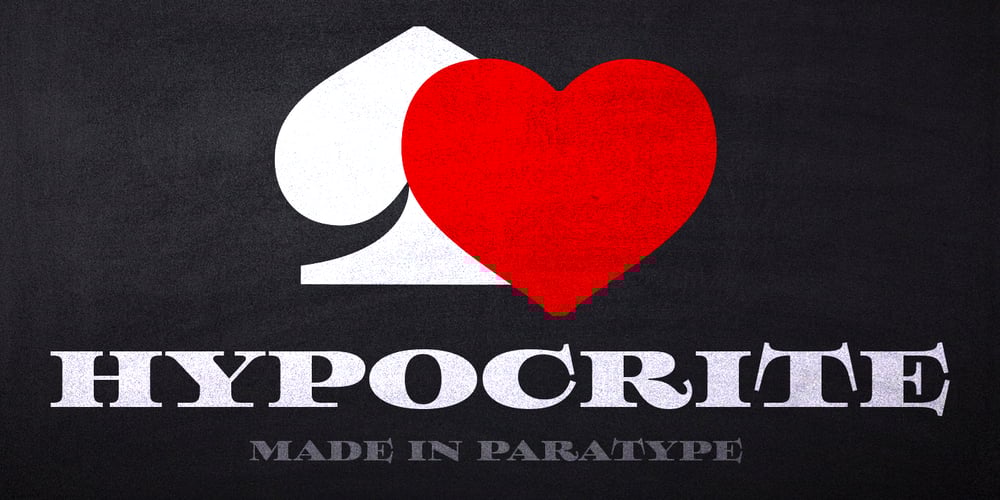
Hypocrite
Hypocrite font
Hypocrite Font Family was designed by Alexander Lubovenko and published by ParaType. Hypocrite contains 1 styles and family package options. Hypocrite is a wide and black display serif face with a hint of decay and black humor. Handle with care. Shelf-life unlimited. Designed by Alexander Lubovenko and released by Paratype in 2017.